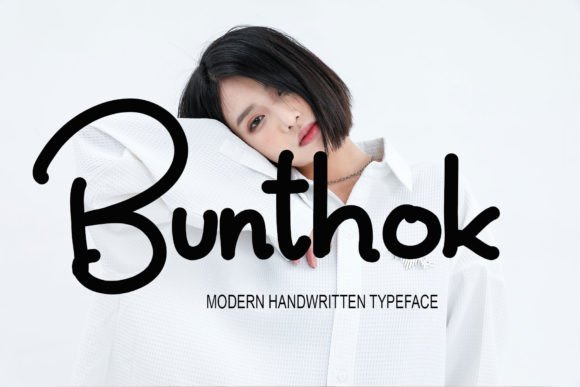
Discover the Charm of Bunthok Font: A Modern Handwritten Delight
I’ll never forget the time I was working on a wedding invitation project, searching for the perfect font to capture the couple’s playful yet elegant vibe. Hours were spent scrolling through font libraries, but nothing seemed quite right. That’s when I stumbled upon Bunthok Font, and it instantly became the star of the show! In this article, I’ll share my love for this stylish and modern handwritten font, its versatility, and how you can make the most of it in your creative projects.
An Honest Review of Bunthok Font
- ✨ Unique playfulness that adds a touch of personality to any design
- ✅ Perfect for a wide range of projects, from logos and branding to wedding invitations and social media graphics
- 💫 Beautifully crafted to convey a sense of elegance and sophistication
- 🎨 Highly versatile, allowing for endless creative possibilities
While Bunthok Font is an excellent choice for many projects, there are a few minor quirks to be aware of:
- ⚠️ Some users may find the font’s playfulness too informal for certain projects, such as corporate branding or formal events
- 🤔 The font’s uniqueness may not be immediately recognizable or memorable for some audiences
- Experiment with OpenType features, such as ligatures and stylistic alternates, to add personality to your text
The Backstory of Bunthok Font
Bunthok Font was crafted with love and attention to detail by a talented designer who aimed to create a modern, handwritten font that captures the essence of playfulness and elegance. The designer’s inspiration came from the beauty of everyday handwritten notes and the desire to make digital communication more personal and engaging.
| Font Name | Bunthok Font |
| Author | Canden Meutuah |
Q: What makes Bunthok Font unique?
A: Bunthok Font stands out due to its stylish, modern handwritten design that combines playfulness with elegance, making it perfect for a wide range of creative projects.
Q: Is Bunthok Font suitable for body text?
A: While Bunthok Font is beautiful and highly legible, its uniqueness and playfulness make it more suitable for headlines, titles, and short paragraphs. For longer body text, a more traditional font might be more readable.
Q: Can I use Bunthok Font for my branding and logo?
A: Absolutely! Bunthok Font’s modern and stylish design makes it an excellent choice for logos, branding, and any project where you want to make a memorable impression.